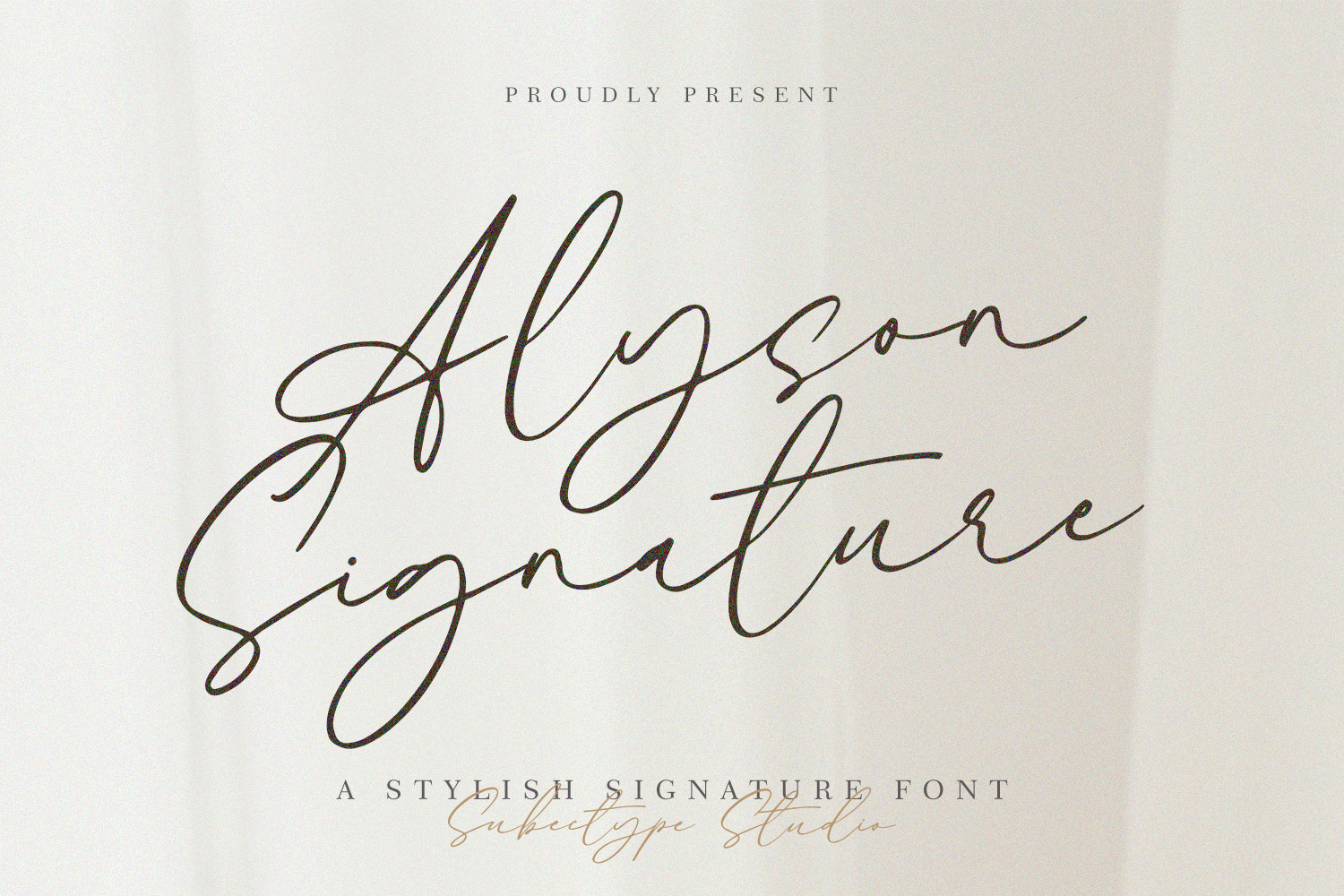
Alyson Signature Font
Designed by Rangga
About Alyson Signature
Alyson Signature is a Hanwritten Signature Font, font with a touch of handwriting style. This font is perfect for creating signature
logos and watermarks for photography studio or wedding invitation.
Alyson Signature includes full set of beautifull hand lettered uppercase and lowercase letters, numerals and
a large range of punctuation